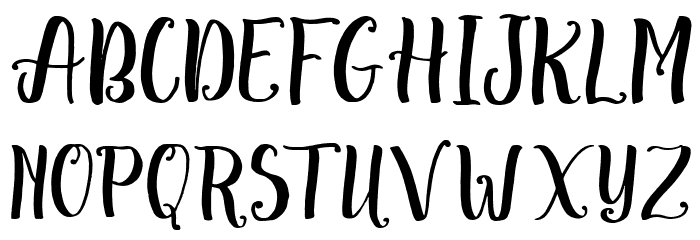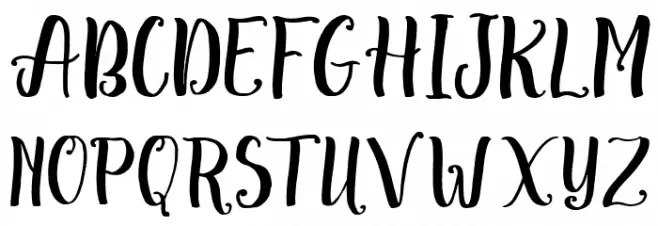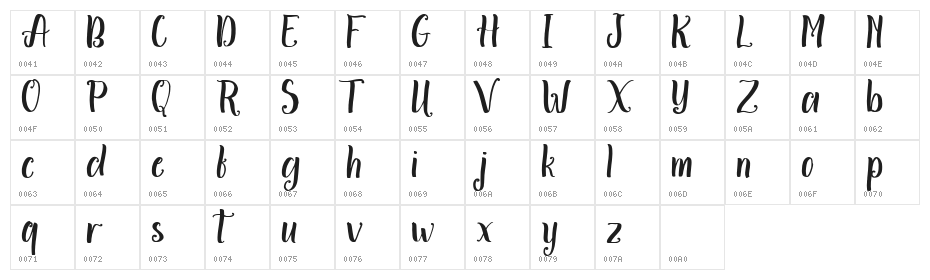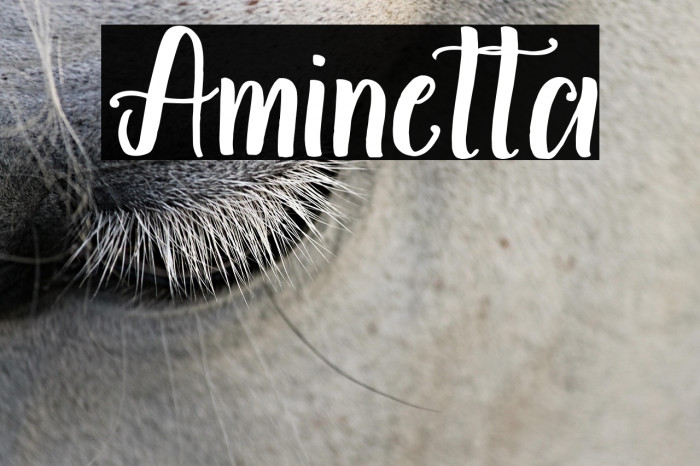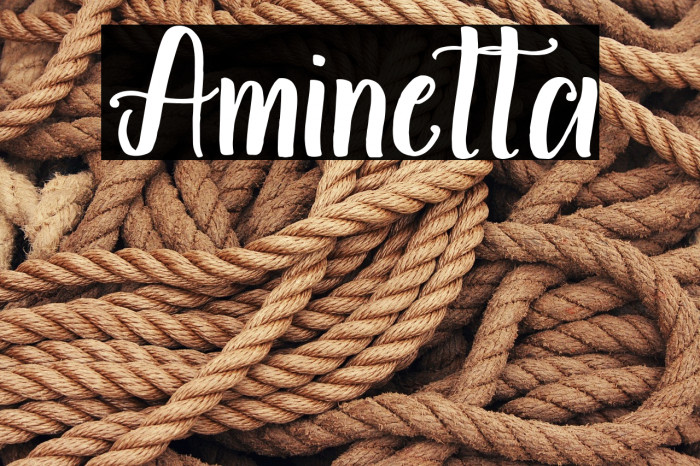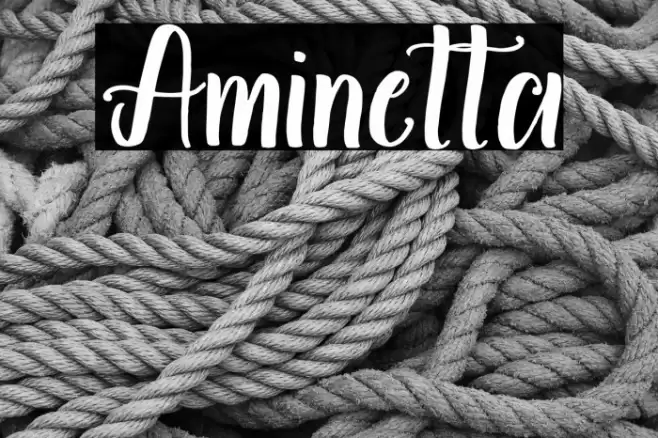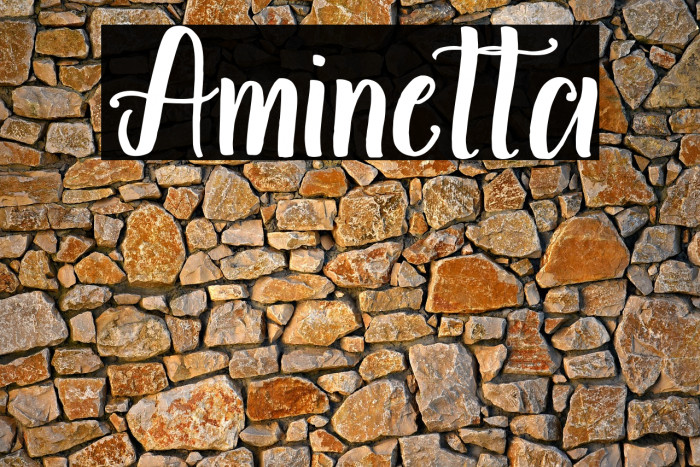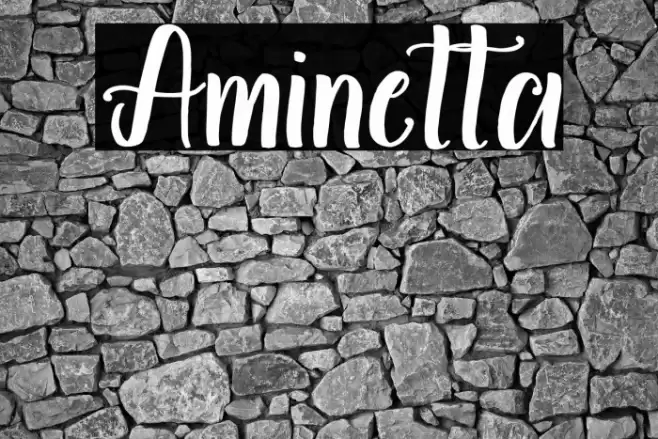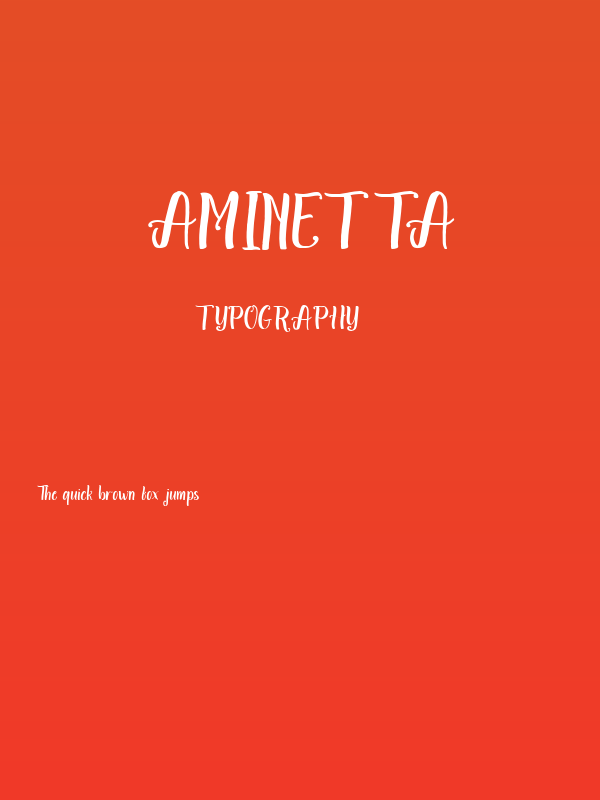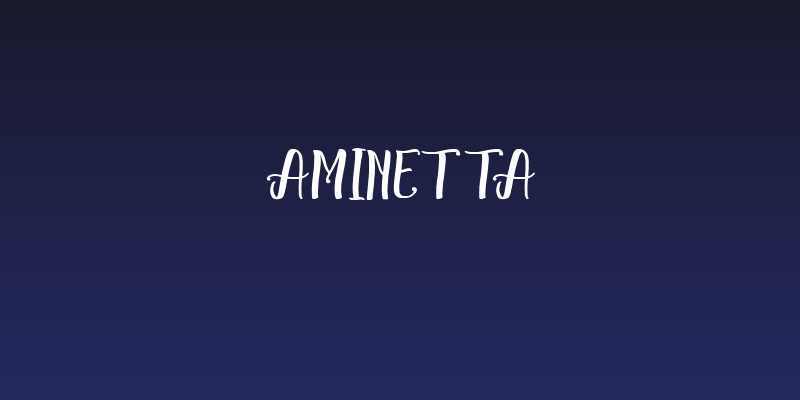
Aminetta Font
Aminetta Description
This font features a playful and whimsical script style, characterized by its flowing, cursive letters with a hand-drawn appearance. The uppercase letters are bold and slightly condensed, with exaggerated loops and swirls that add a touch of elegance and flair. The lowercase letters maintain a consistent style, with smooth curves and a slight slant that enhances readability. The font includes a full set of numerals and a selection of special characters, each designed to complement the overall aesthetic. The strokes vary in thickness, providing a medium contrast that adds depth and dimension to the text. This font is versatile and can be used to convey a sense of creativity and personality.